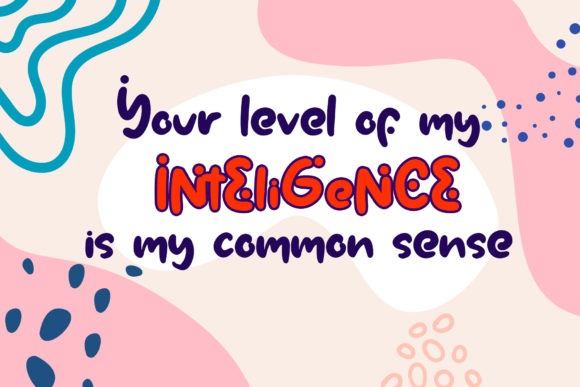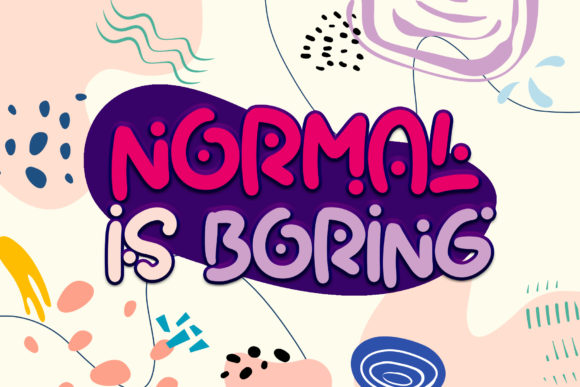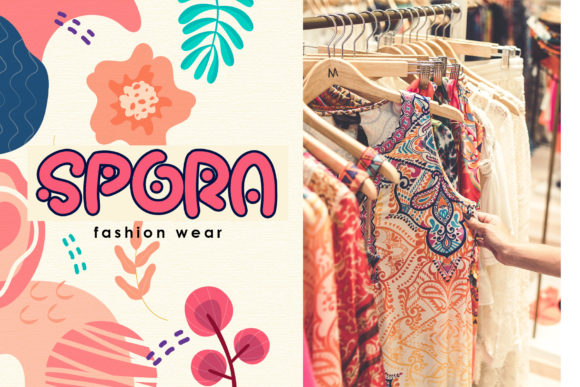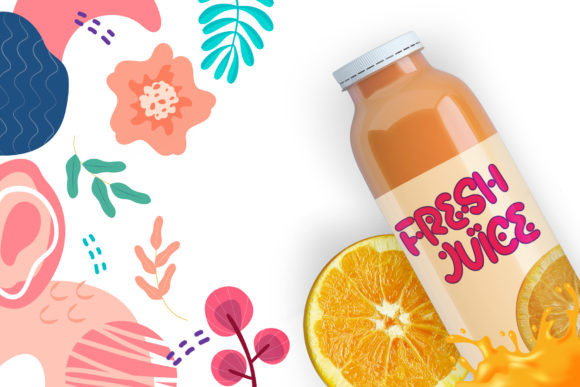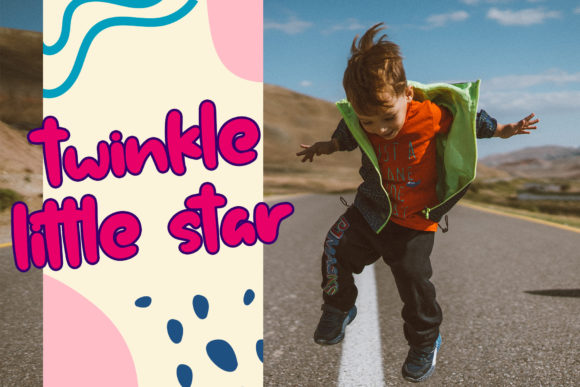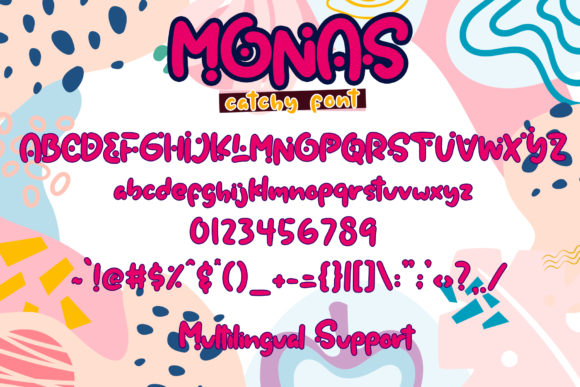
Monas Font
About Monas Font
Monas is a unique and warm script that will turn any design idea into a true standout. Get inspired by its unique charm, and turn any idea into a true standout.